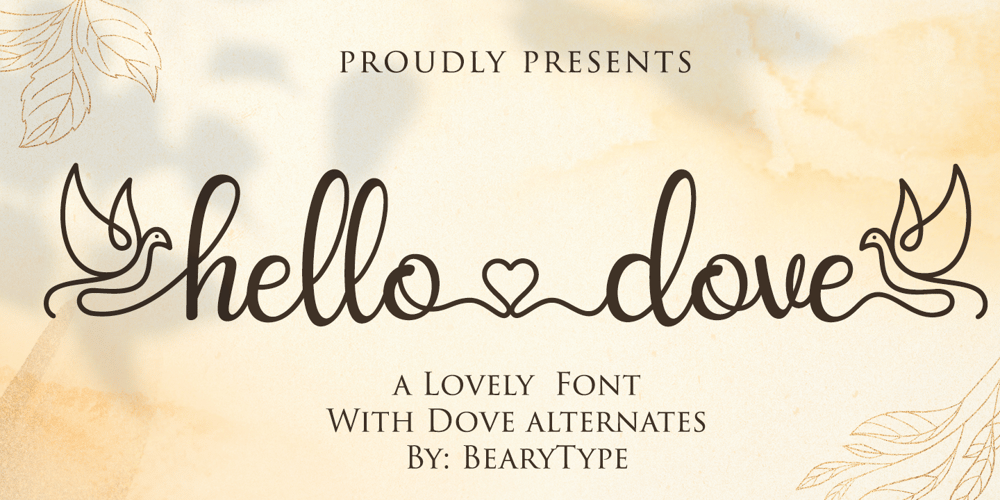
Hello Dove
Hello Dove font
Hello Dove Font Family was designed by Dian Haniffan Hadi and published by Beary. Hello Dove contains 1 styles and family package options. Hello Dove is a sweet and angelic handwritten font. It looks lovely on wedding invitations, thank you cards, quotes, greeting cards, logos, business cards and every other design which needs a handwritten touch.This font is PUA encoded which means you can access all of the glyphs and swashes with ease!